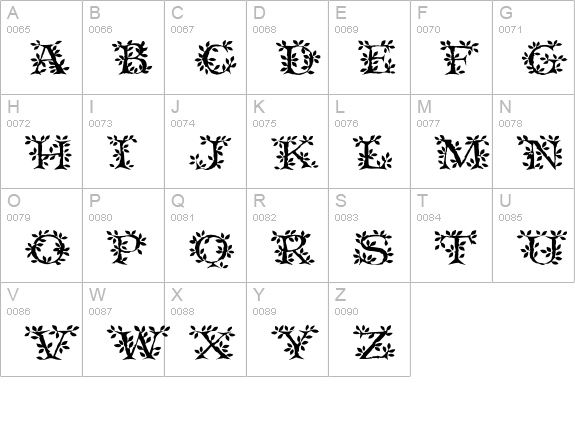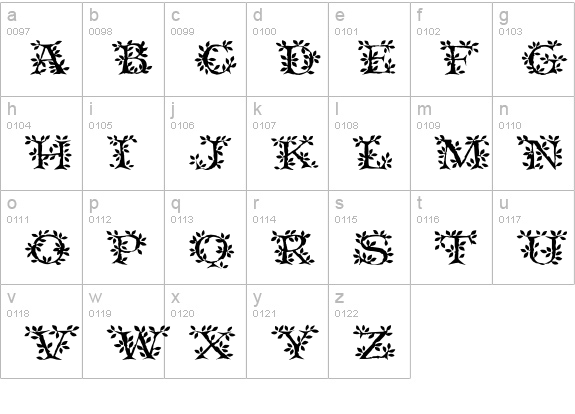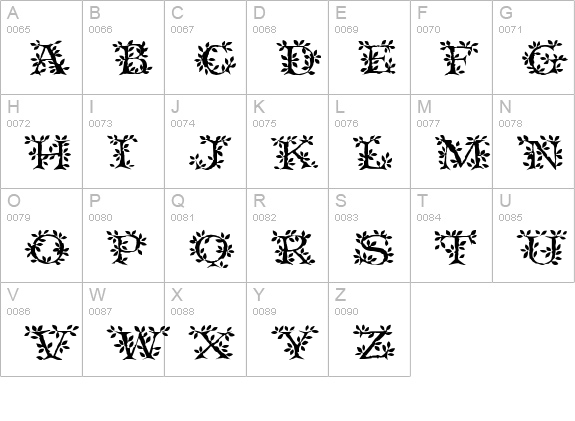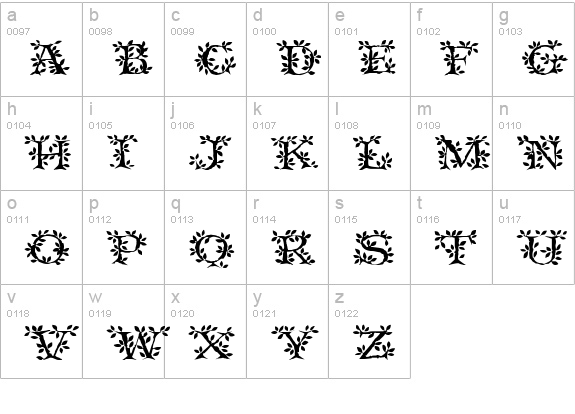
TenderLeaf Font Details
TenderLeaf is a beautifully crafted font that effortlessly combines elegance with a touch of whimsy. Its delicate strokes and graceful curves make it perfect for projects that require a soft and feminine touch. Whether you're designing wedding invitations, creating a logo for a boutique, or crafting a heartfelt quote poster, TenderLeaf will add a touch of sophistication and charm. But what sets TenderLeaf apart from other fonts is that it's not only visually stunning, but also free. Yes, you read that right! This exquisite font is freely available to download at FontsMarket.com. Now you don't have to worry about breaking the bank to add a touch of elegance to your designs. Downloading TenderLeaf is incredibly easy. Simply head over to FontsMarket.com, search for TenderLeaf, and click on the download button. Within seconds, you'll have this beautiful font ready to use in your projects. But don't let its price tag fool you. Despite being free, TenderLeaf is a high-quality font that doesn't compromise on its design or functionality. Each character has been meticulously crafted to ensure clarity and legibility, making it suitable for both print and digital applications. Whether you're a professional designer or a hobbyist, TenderLeaf will be a valuable addition to your font collection. Its versatility allows it to be used in various design projects, from branding to social media graphics. Plus, its free availability means you can experiment and play around with this font without any limitations. So why wait? Discover the beauty of TenderLeaf today by downloading it for free at FontsMarket.com. Let your creativity flourish and watch as this font adds a touch of elegance to your designs, all at no cost to you.